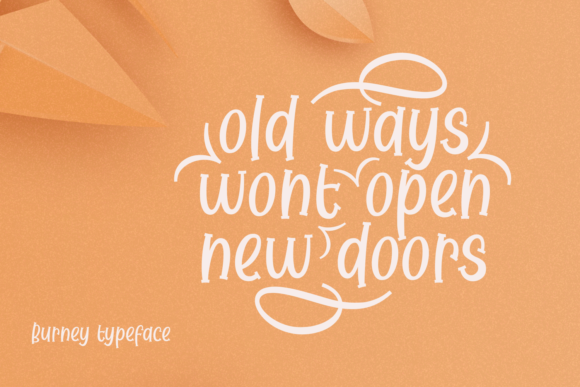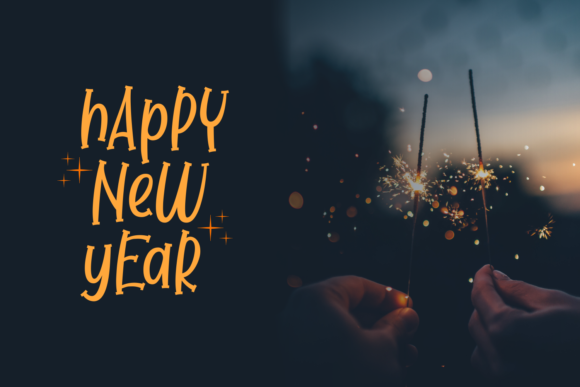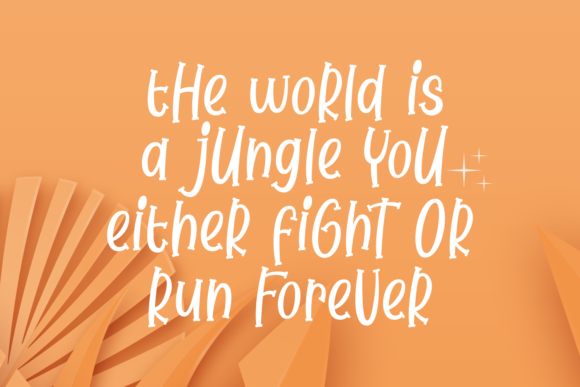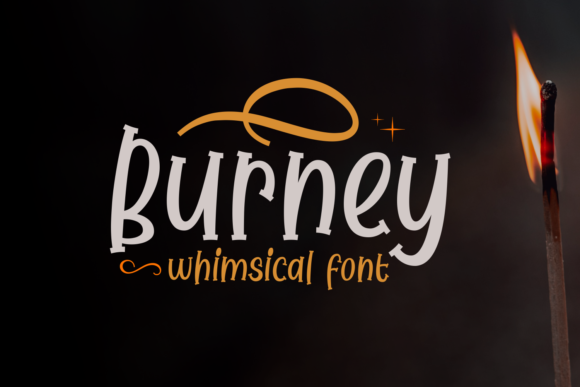
The Quirky Charm of Burney Font: A Designer’s Delight
I’ll never forget the time I was working on a branding project for a trendy coffee shop. I had the logo concept nailed, but I was struggling to find the perfect font to complement it. That’s when I stumbled upon Burney Font. Its quirky vibe and casual charm instantly caught my attention, and I knew I had found the one. In this article, I’ll share my experience with Burney Font, its features, and how to make the most of it in your designs.
An Honest Review of Burney Font
• ✨ Unique and quirky personality that adds a touch of whimsy to any design
• ✅ Extensive character set, including OpenType features and stylistic alternates
• ✅ Perfect for display text, headings, and titles
• ⚠️ May not be suitable for body text or long-form content due to its display font nature
• 🤔 Some users may find the quirky vibe too playful for certain design projects
The Backstory of Burney Font
Burney Font was designed by a team of creatives who wanted to create a font that was both quirky and charming. Inspired by vintage signs and handwritten notes, Burney Font is the perfect blend of playfulness and sophistication. The design team poured their hearts into crafting a font that would bring a smile to designers’ faces and add a touch of whimsy to their projects.
Font Name Burney Font
Author Dani (7NTypes)
What is Burney Font best used for? Burney Font is perfect for display text, headings, and titles. It’s ideal for branding projects, packaging design, and any design that requires a touch of whimsy.
Is Burney Font suitable for body text? No, Burney Font is a display font and may not be suitable for body text or long-form content. Its quirky vibe and playful personality are best suited for headings and titles.
Is Burney Font available in multiple languages? Yes, Burney Font supports multiple languages. However, please check the font’s character set to ensure it includes the characters you need.